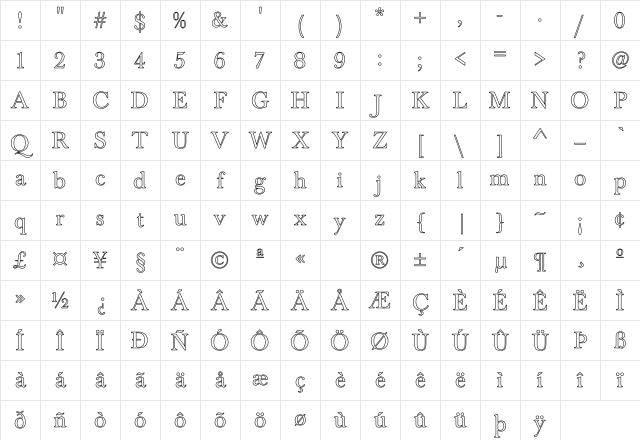
Baskerville-Normal Hollow Regular
Design Context for Baskerville-Normal Hollow
Baskerville-Normal Hollow is a composed and adaptable typeface that performs quietly and consistently across a wide range of design contexts.